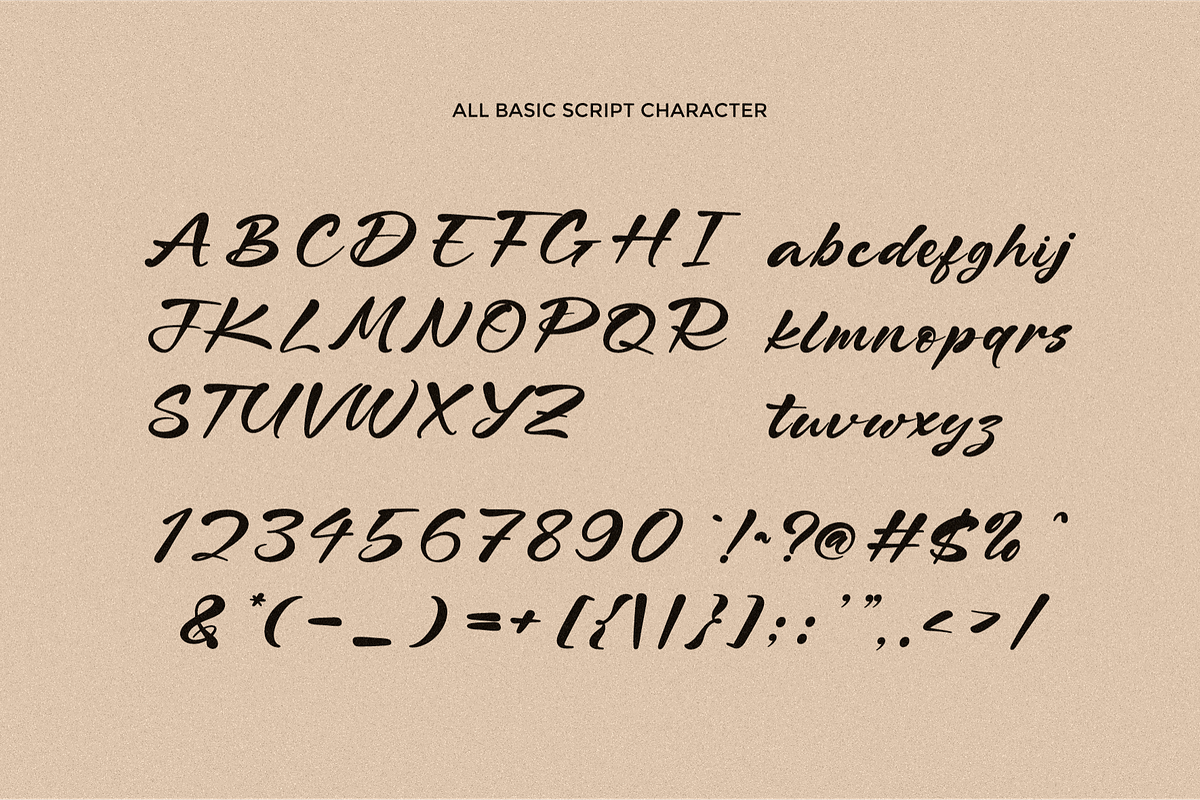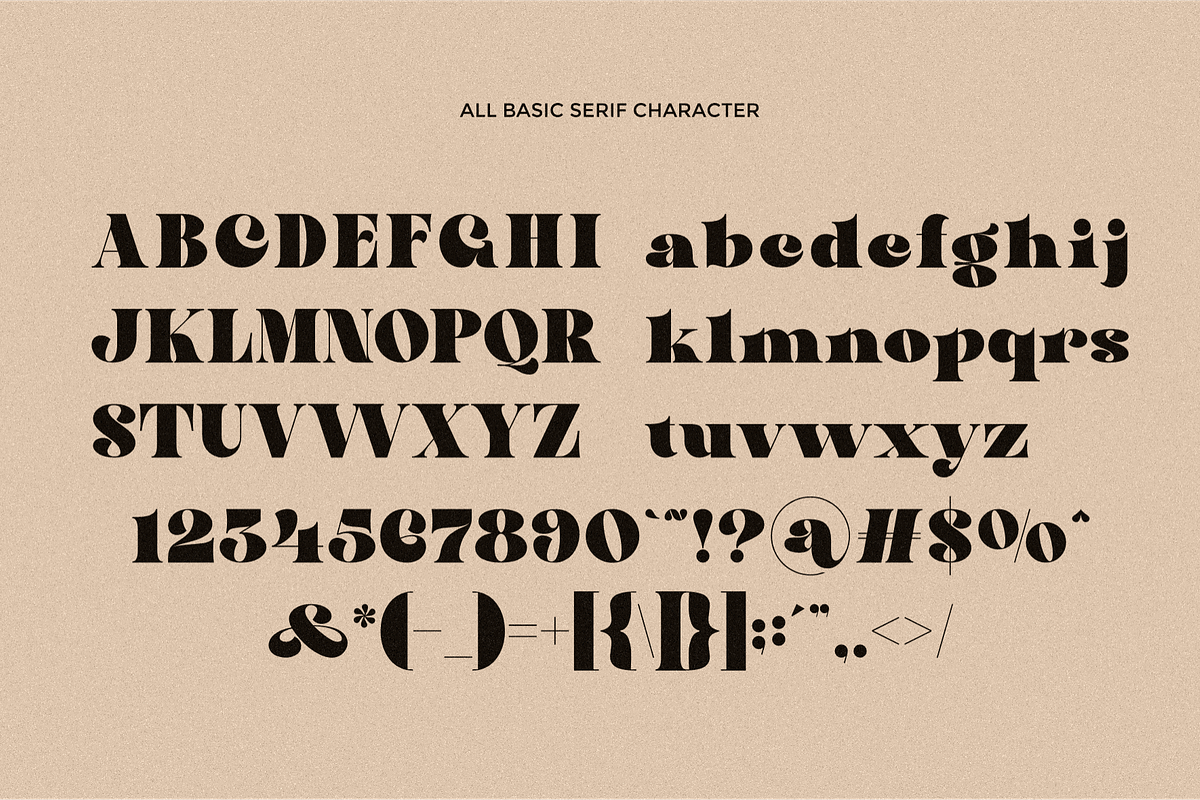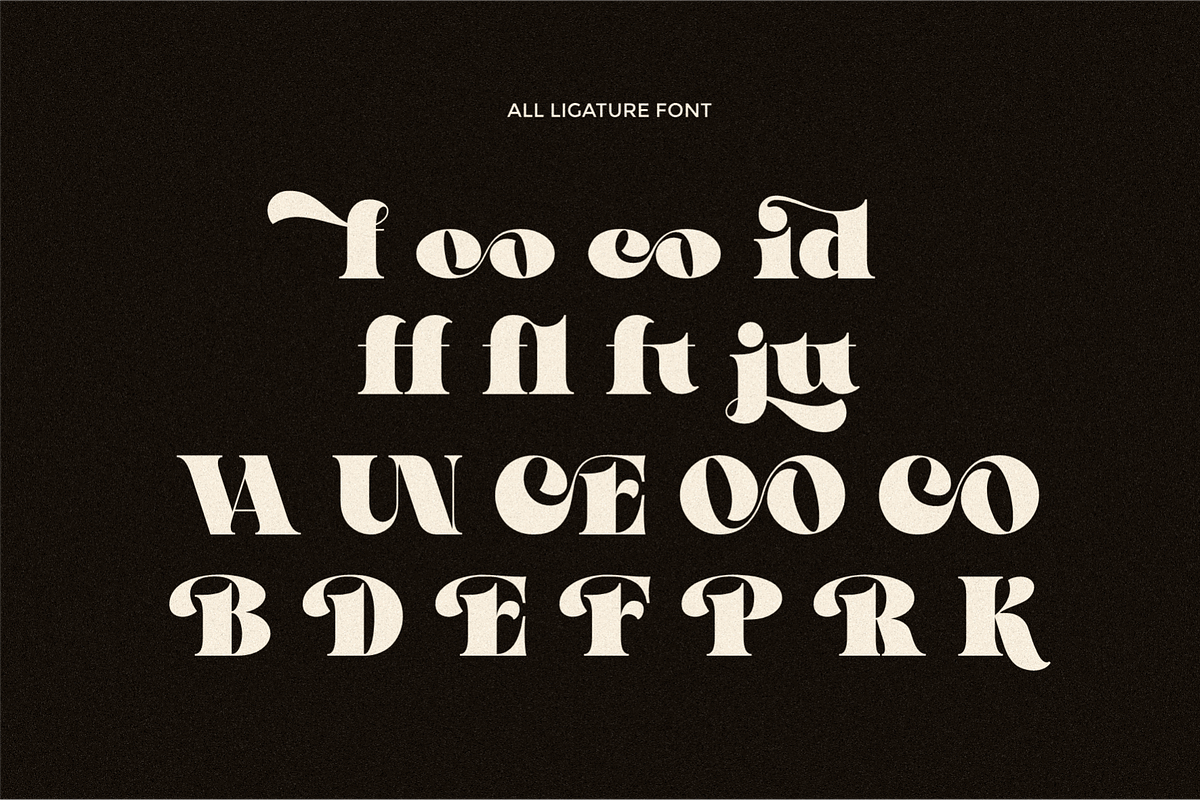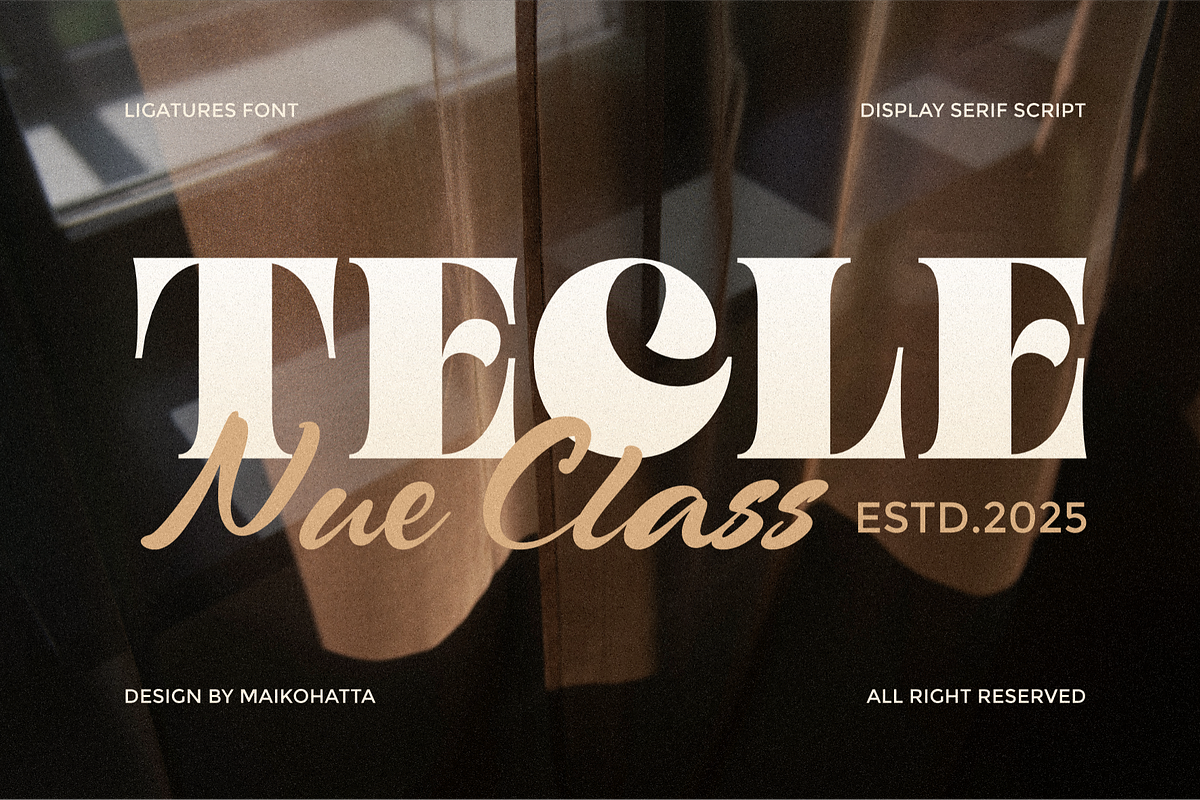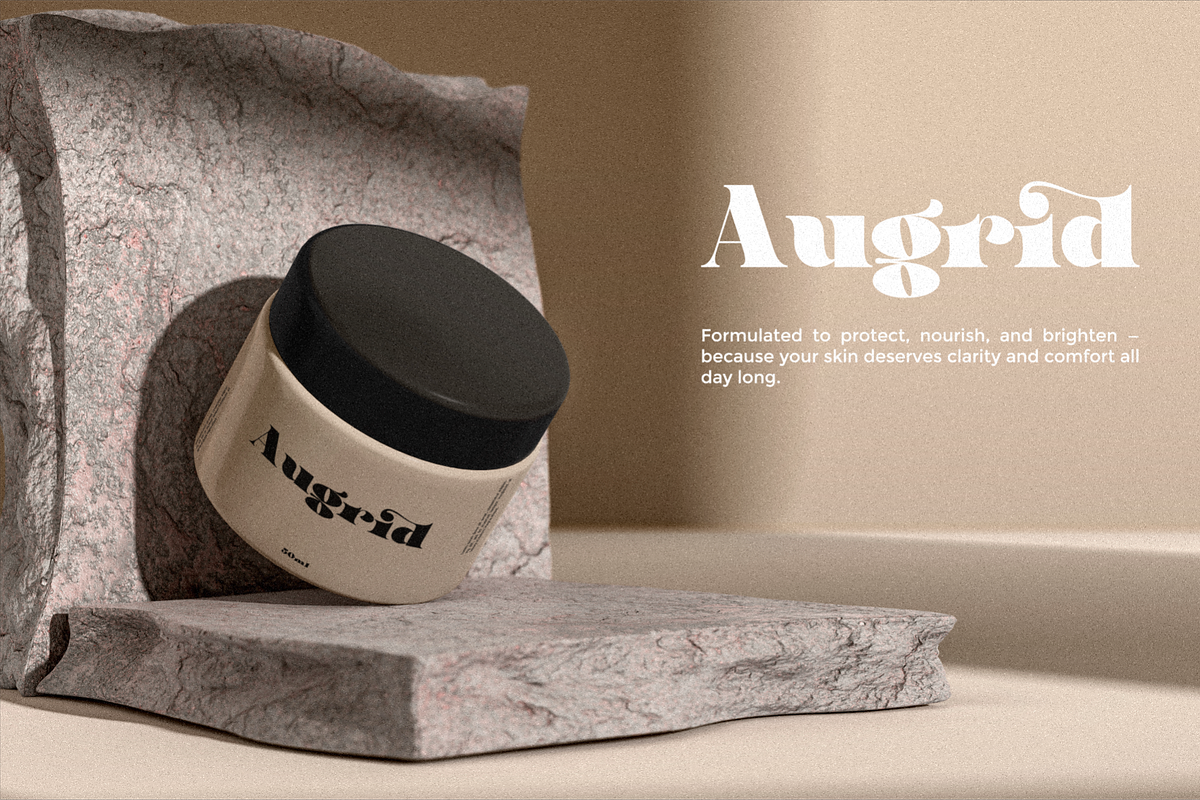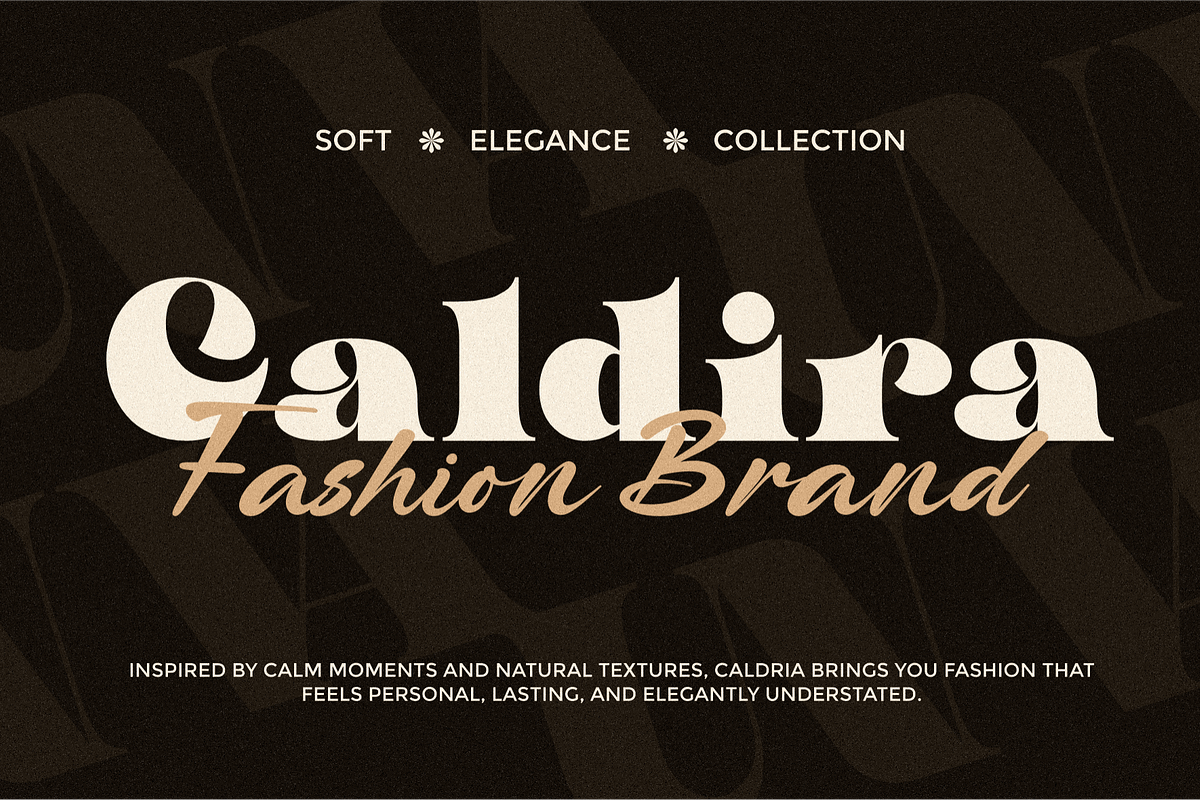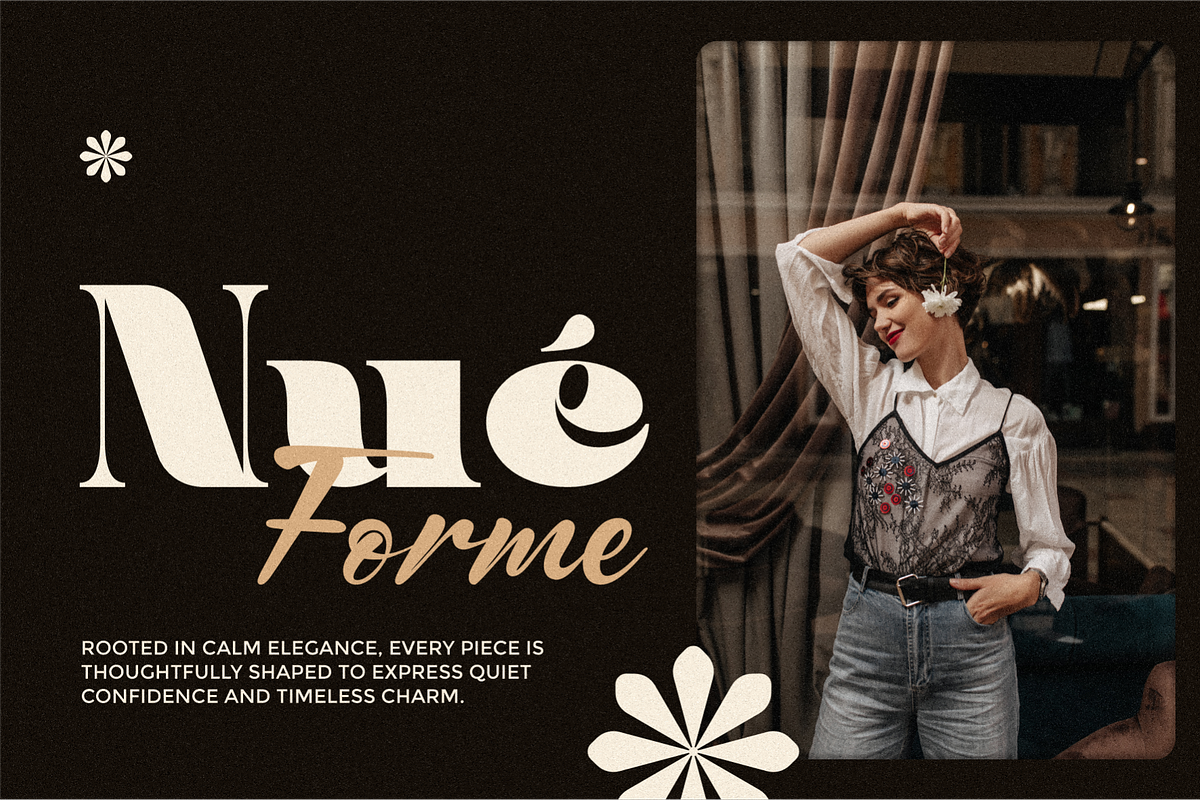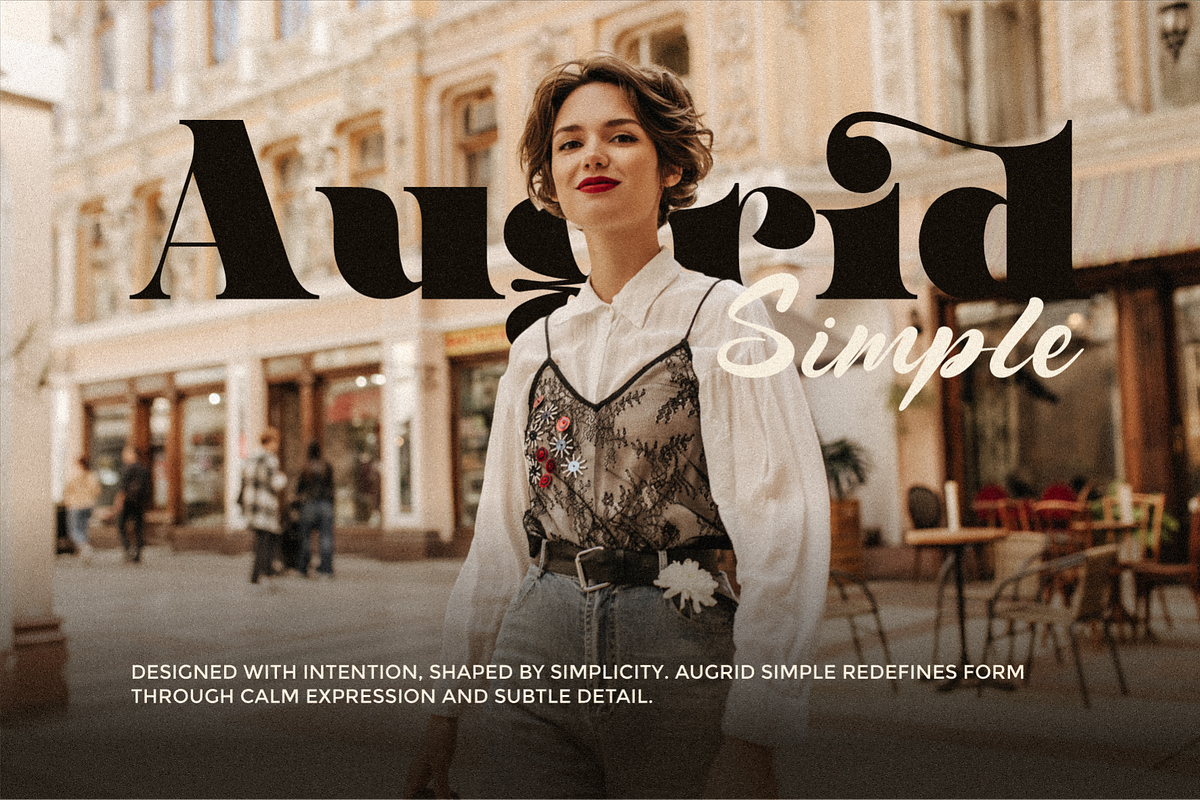
Tecle - Font Duo Typeface
Introducing New Typeface Tecle is a versatile and unique typeface that comes in two distinct styles: Serif and Script. Each style brings its own flavor and character.
Tecle Serif A contemporary serif with high contrast, sharp details, and classic charm.
Tecle Script A smooth, flowing script with natural ligatures and an authentic handwritten feel.
In summary, Tecle offers a perfect balance between Classic and handcrafted charm through its two styles, Serif and Script. The Serif style brings a contemporary, bold clean, while the Script style offers a beautiful, handwritten appeal.